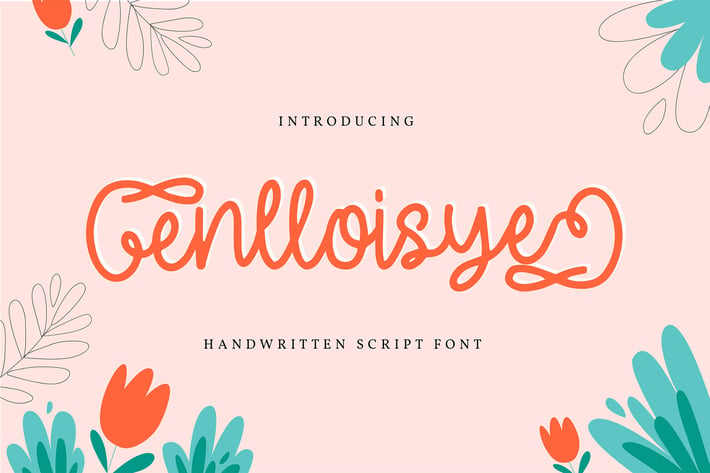
Enlloisye | Handwritten Script Font
Enlloisye | Handwritten Script Font with a calligraphy style, So beautiful on invitation like greeting cards, branding materials, business cards, quotes, posters, and more!